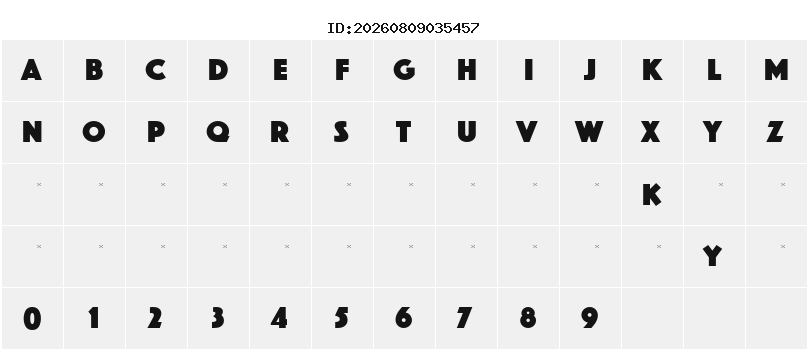
• Font Name: PhosphateSolid
About PhosphateSolid.ttf
PhosphateSolid.ttf is a modern, elegant sans-serif font designed for ultimate readability and visual harmony. Perfect for branding, headlines, web design, and print materials.